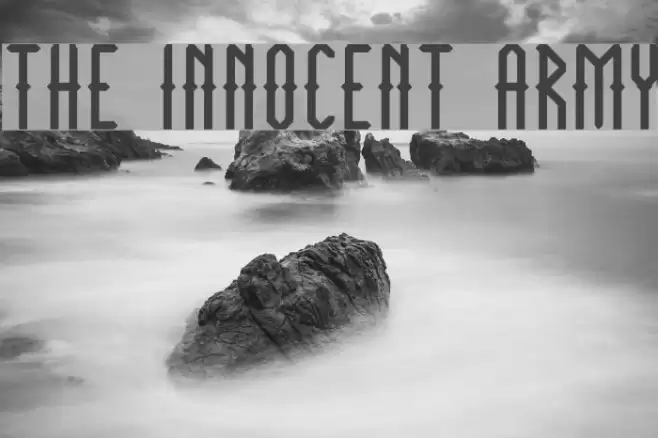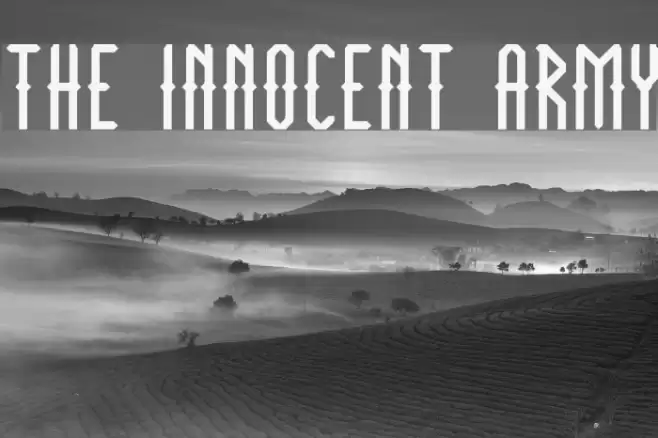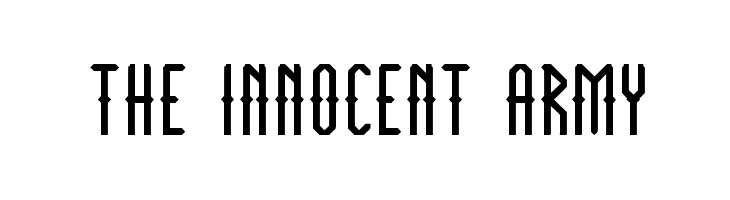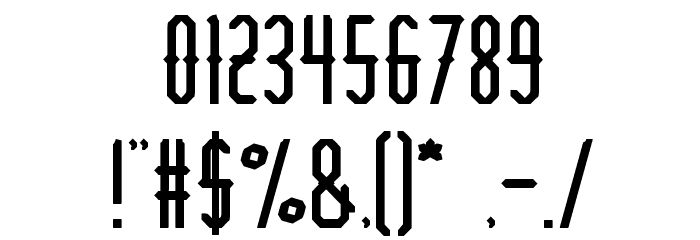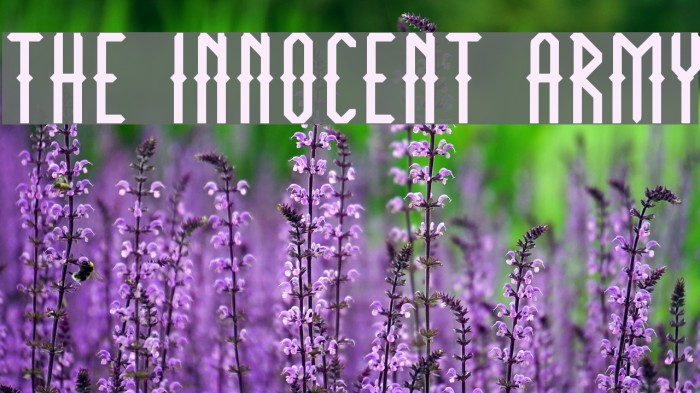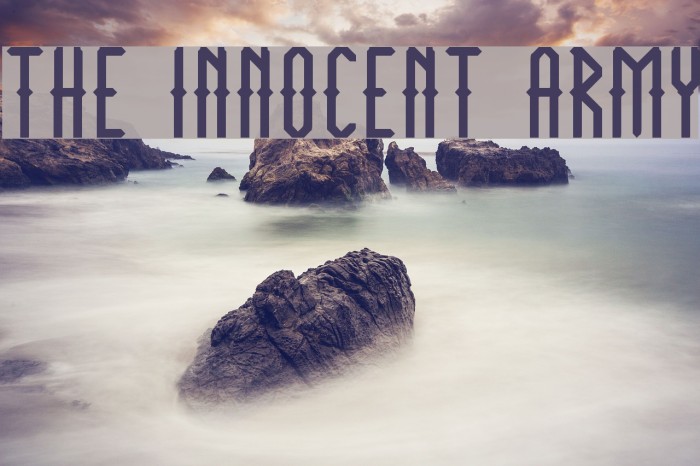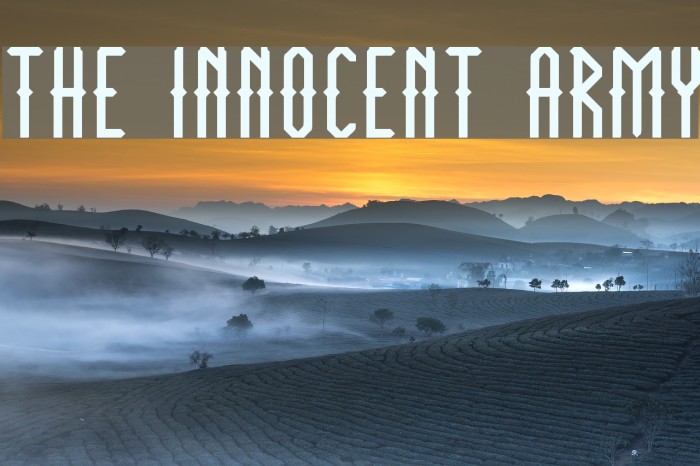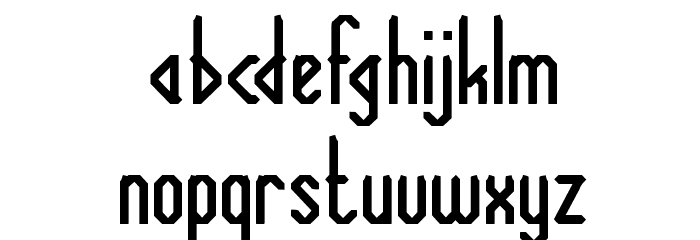
THE INNOCENT ARMY Font
THE INNOCENT ARMY Description
This font features a bold, geometric design with sharp angles and a distinct, modern aesthetic. The uppercase letters are tall and narrow, with a strong vertical emphasis, while the lowercase letters maintain a consistent style with slightly softer curves. The numerals are uniform in height and width, complementing the overall design. Special characters are crafted with the same attention to detail, ensuring a cohesive look across all glyphs. The font's unique style makes it stand out, ideal for projects that require a strong visual impact.
A bold, geometric font with sharp angles and a modern aesthetic from Uncategorized fonts.
- Proposed Projects: Ideal for branding, posters, album covers, and any project that requires a striking, modern look.